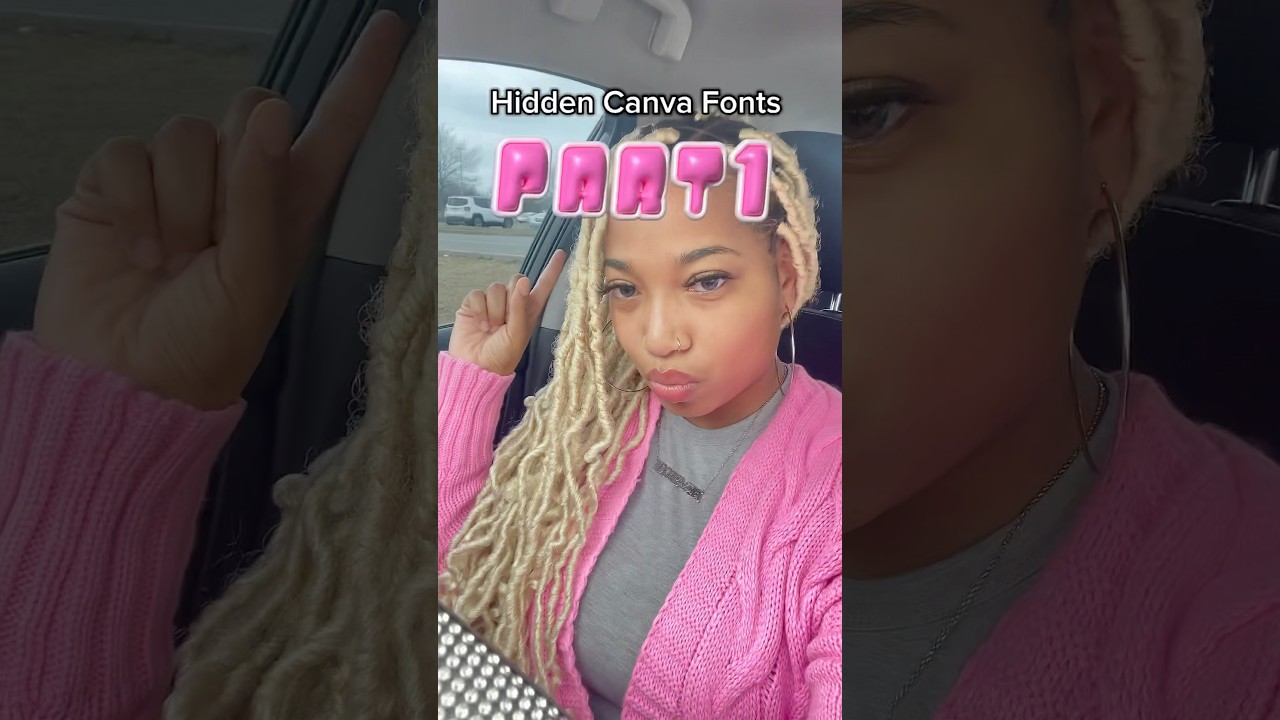
Hidden Canva Fonts This tutorial shows you how to access hidden font collections in canva using set: codes. say goodbye to basic fonts and hello to glossy, 3d, and bubble style letters that make your designs pop. no plugins, no extra tools, just one simple trick. Canva has a huge array of fonts for their pro users but this video will show you how to find hidden fonts like watercolor letters, photo letters and 3d balloon numbers!. Just copy paste any of these into the elements search bar and boom every letter in that exact style is right at your fingertips. Knowing how to find these fonts is key—they are often not showcased directly in basic searches but can be accessed through font sets or community shared links.to find hidden fonts in canva, try exploring font sets labeled specifically for niche communities like healthcare or handmade styles.
Hidden Canva Fonts There are secret fonts in canva!😱. there’s a whole collection of decorative alphabet graphics hiding inside canva’s elements tab, and most people never think to look there. these are png letter sets, not traditional fonts, which means you can mix and match individual letters to build your own words. Type these codes in canva to find their hidden fonts. there are so many to help you take your designs to the next level with minimal effort. here are a few examples below💫.